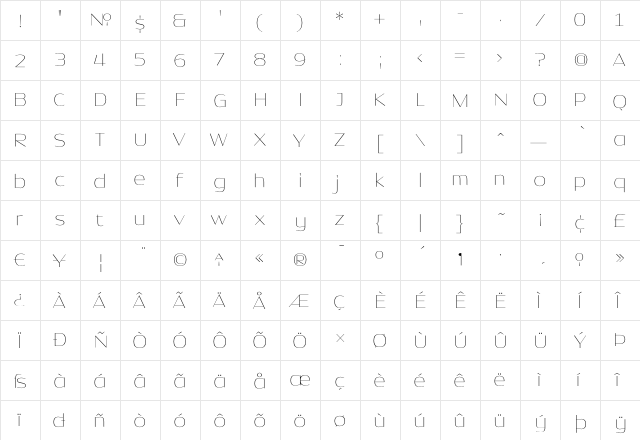
DynastyThin Regular
Design Context for DynastyThin Typeface
DynastyThin is a composed and adaptable typeface that performs quietly and consistently across a wide range of design contexts. The delicate stroke weight brings airiness and refinement to layouts.